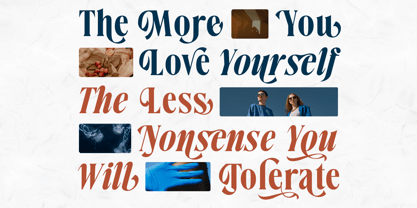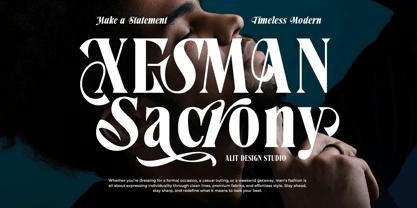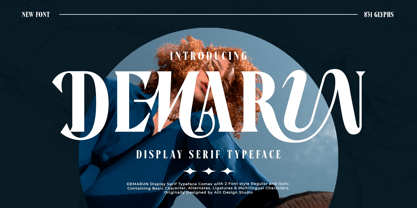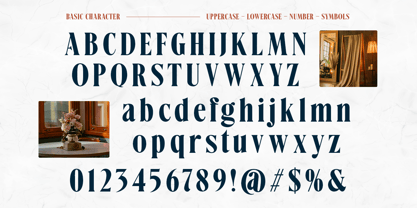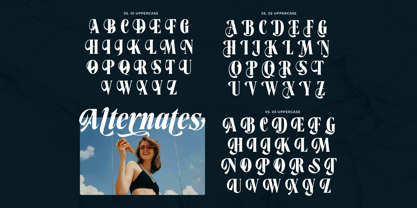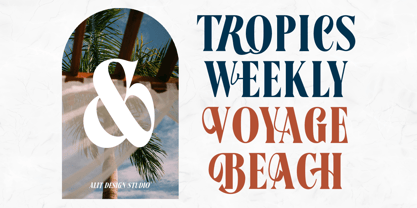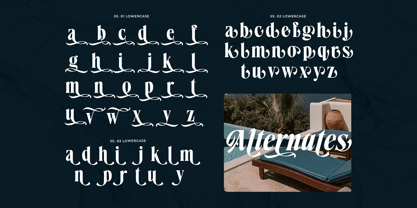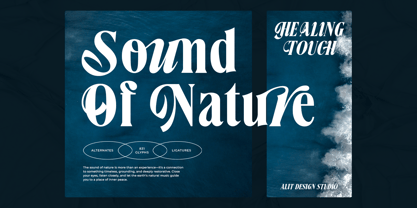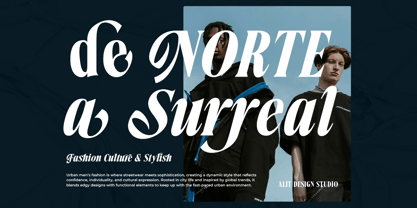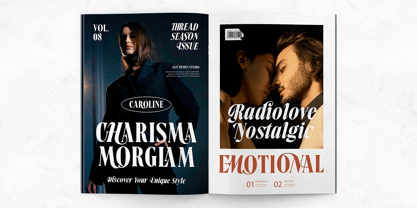
Demarun
Demarun is a striking display serif typeface designed to make a bold statement. This font boasts a luxurious and elegant appearance, perfect for branding, editorial design, and sophisticated advertising campaigns. With 831 glyphs, Demarun supports a wide range of multilingual characters, alternates, and ligatures, offering versatility and customization for diverse design projects.
Features:
• Styles: Available in two styles — Regular and Italic — providing flexibility for different design needs.
• Character Set: Includes uppercase and lowercase letters, numerals, punctuation marks, and symbols, ensuring comprehensive coverage for various creative projects.
• Alternates: Multiple stylistic sets with ornate uppercase letter options to add flair and uniqueness to your work.
• Ligatures: Elegant ligatures enhance readability and aesthetics for text-based designs.
• Multilingual Support: Accommodates a variety of languages with extended glyph coverage.
Design Application:
• Editorials: Perfect for creating high-impact magazine covers and articles.
• Branding: Ideal for luxury brands, beauty products, or high-end packaging design.
• Posters: Commands attention in promotional and event posters.
• Logotypes: Adds sophistication to logos with its sleek serifs and stylized alternates.
Personality:
Demarun combines traditional serif elements with modern flair, making it simultaneously nostalgic and contemporary. Its sharp, dramatic lines and smooth curves exude confidence and sophistication, making it a go-to choice for designers seeking an impactful yet refined look.